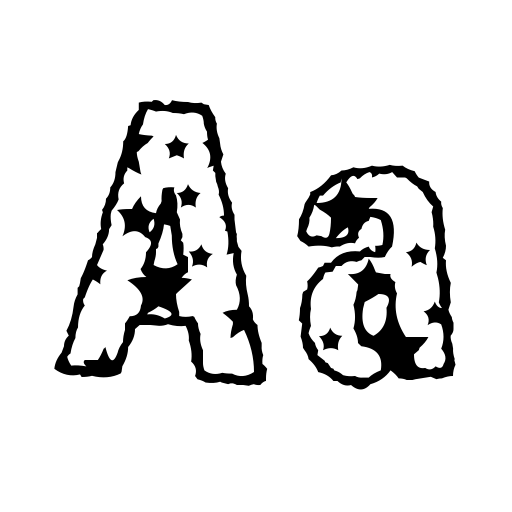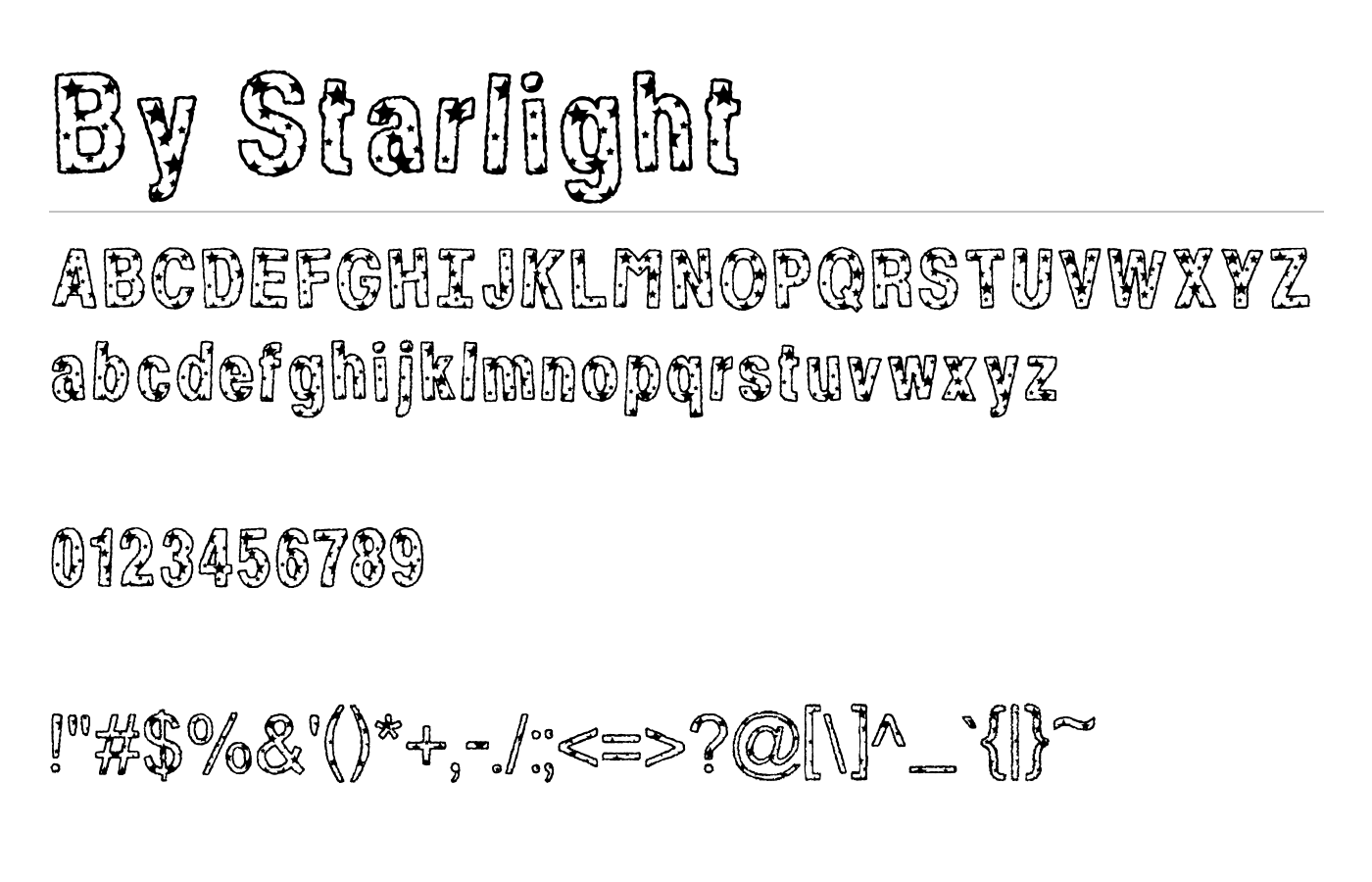
By Starlight is a playful and decorative slab serif font characterized by its bold, slightly condensed letterforms filled with whimsical star shapes. Its textured, outlined strokes give it a hand-crafted, vintage charm, making it ideal for eye-catching headlines, fun packaging, or themed event designs where a festive and creative vibe is desired. This font works best in large sizes to showcase its unique stars and quirky personality, adding a distinctive touch to any project.
By Starlight Font
About By Starlight Font
| Font family | By Starlight Font |
| Designer | Lauren C. Brown |